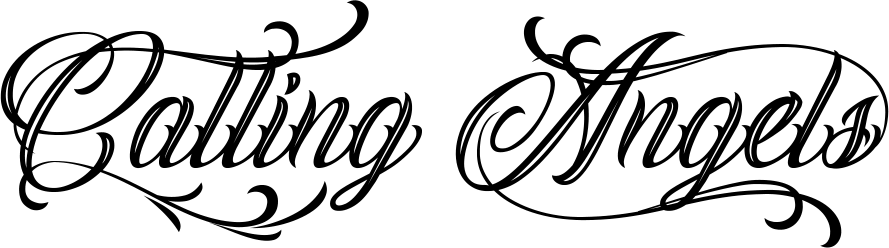
Calling Angels Font
With Calling Angels and its calligraphy style, your typography takes on an even more impressive look with utter delicacy and elegance. This calligraphy font is comprised of stylish elements that are further decorated with long swashes and curves, leading to a much nicer but harder-to-read text.
With so many great features and no numerals or punctuations, Calling Angels proves to be suitable for both digital lettering like websites, and print material such as greeting cards, or your other first-class projects.
The full version of this font has loose swashes are ligatures is not fused at the letters like in the free version. Also has another ligatures for better reading.